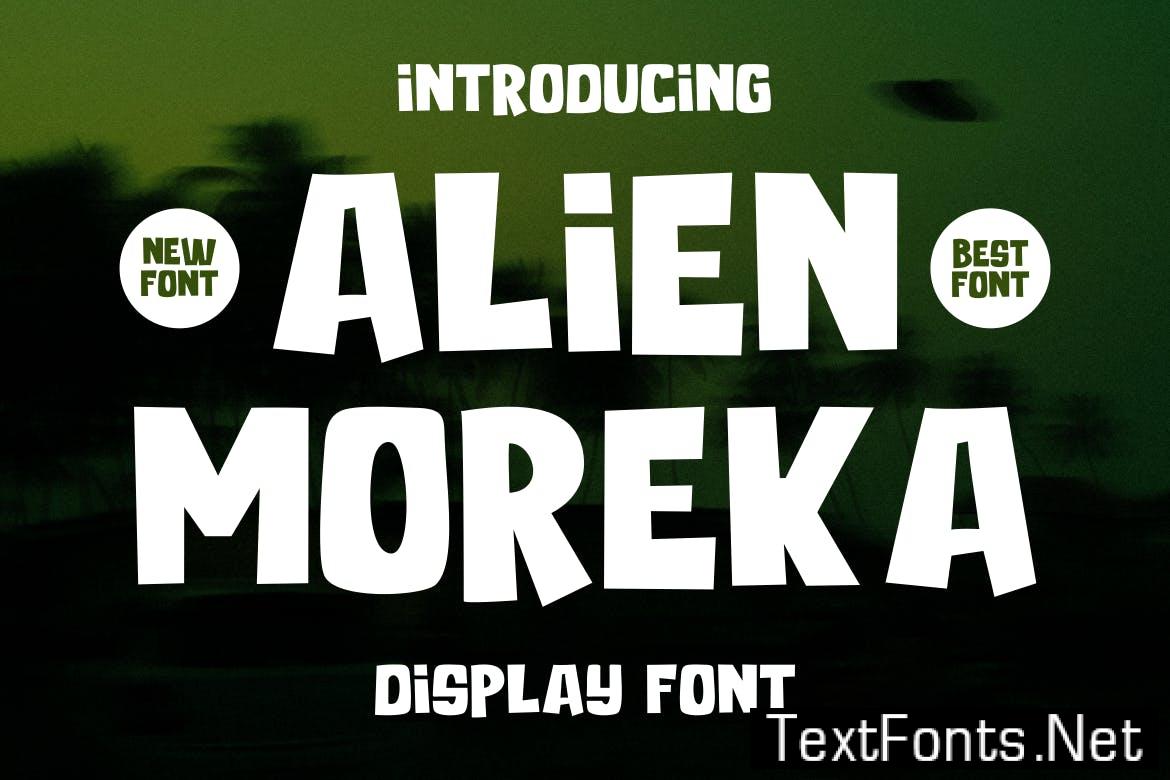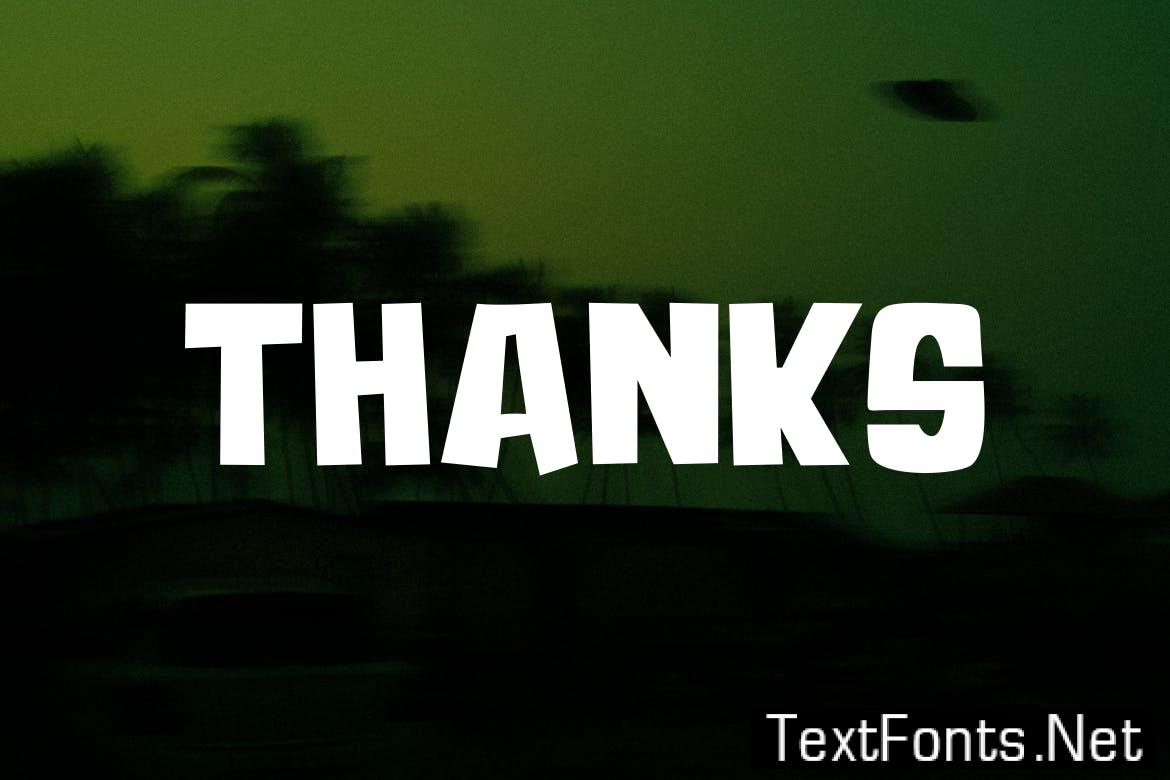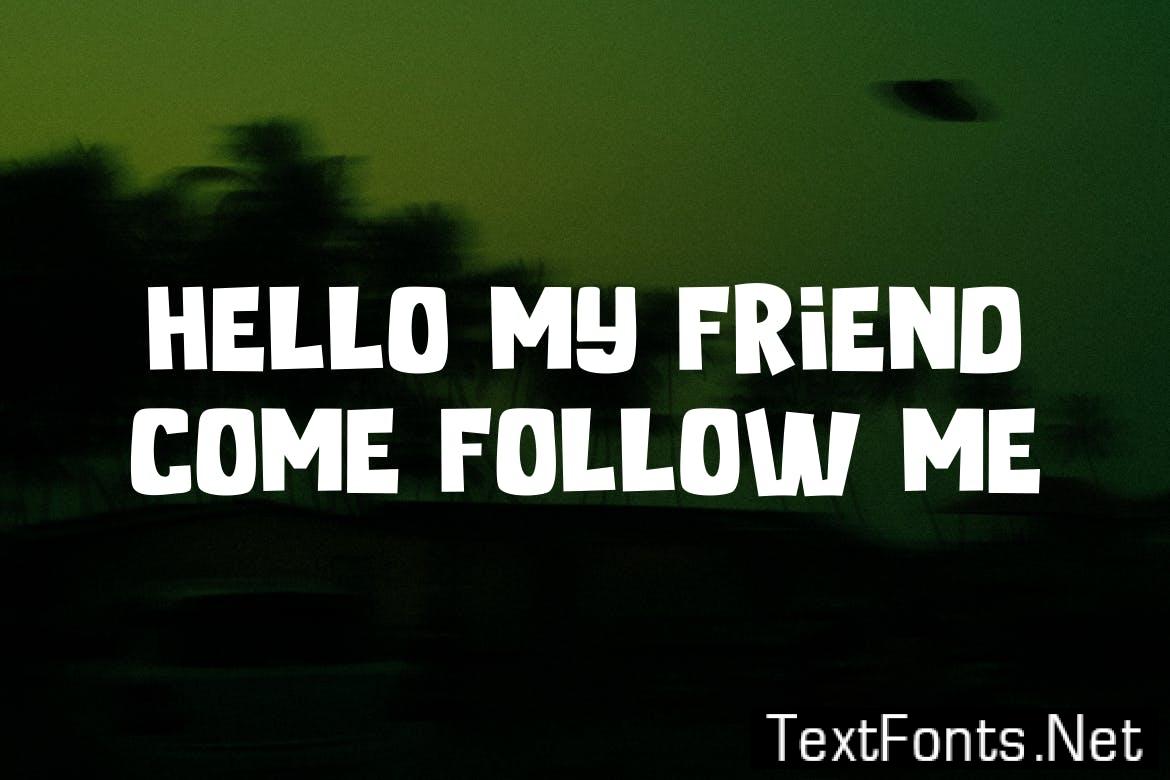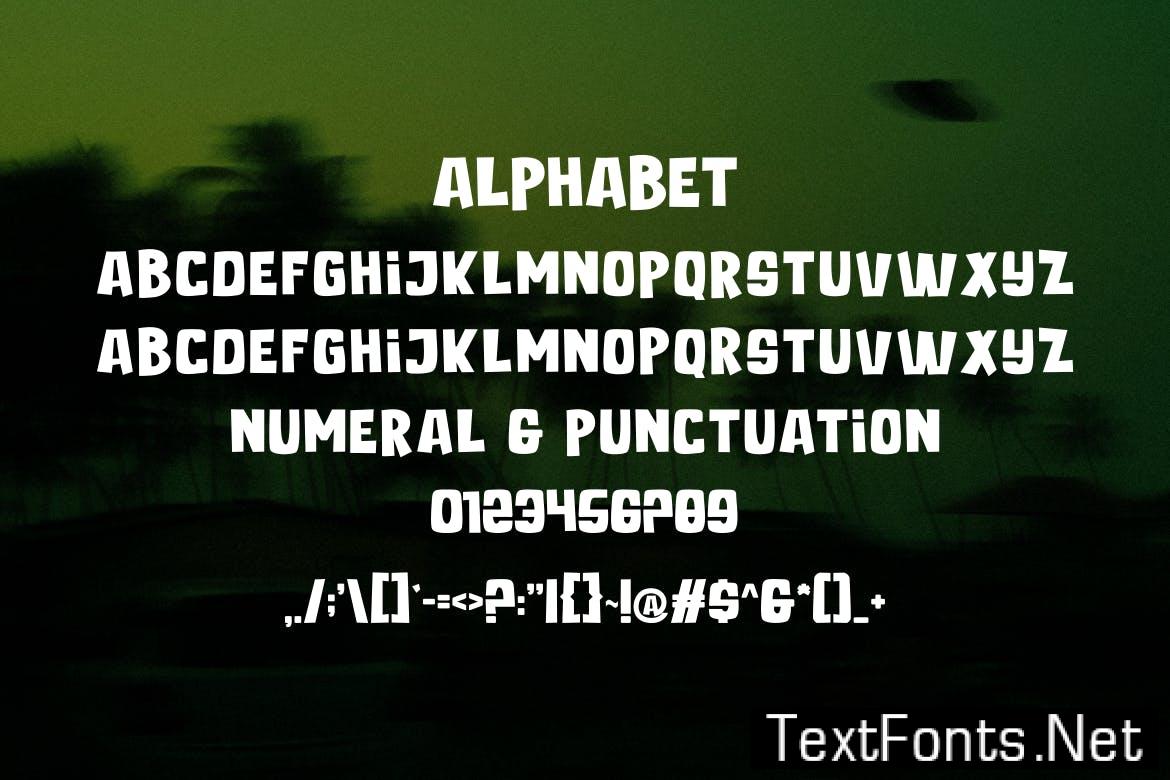
**Alien Moreka Font** works very well in upper and lower case. Perfect for
birthday invitations, stationery, kids t-shirt designs, labels, logos, branding, packaging, calendars
and more projects about kids!